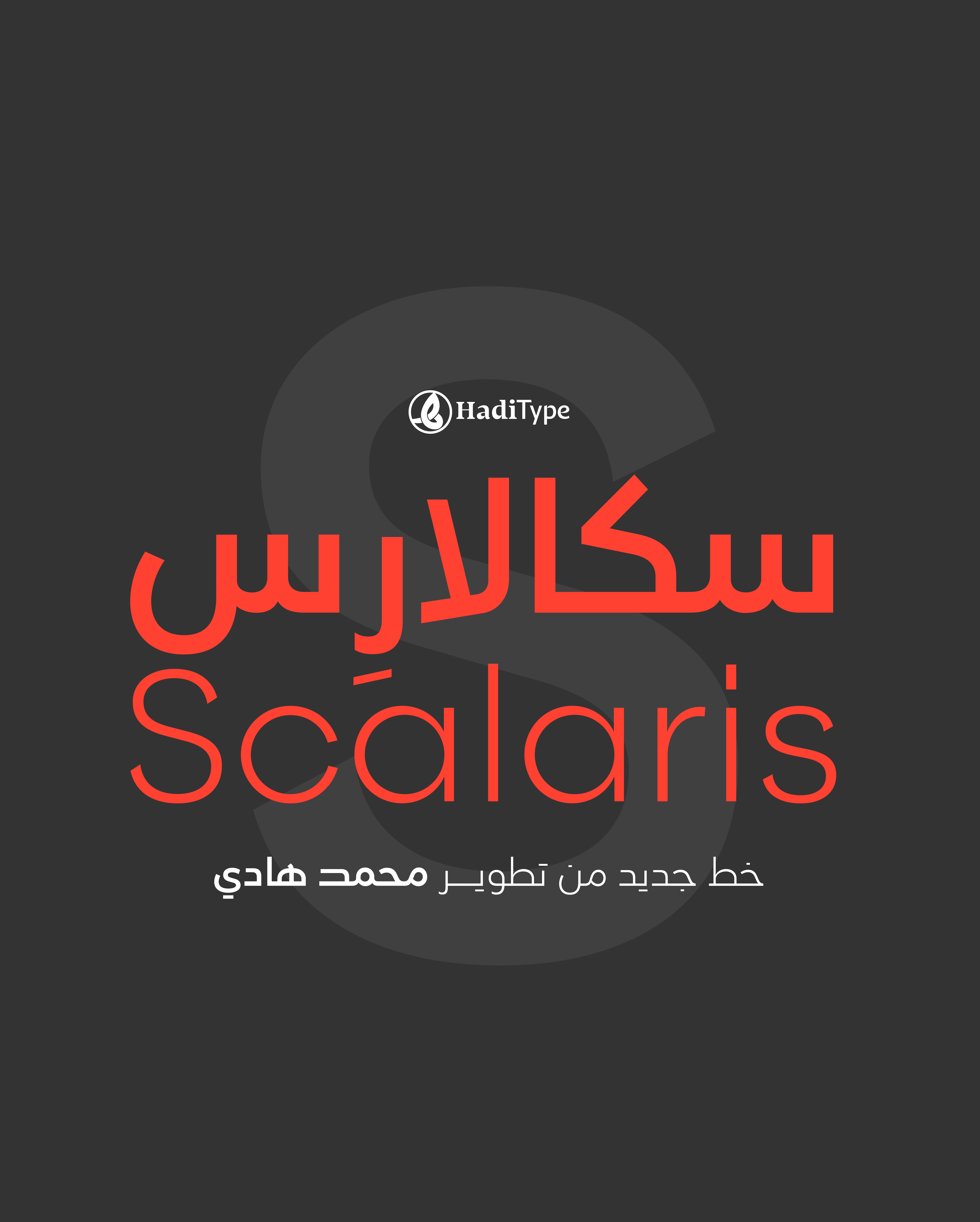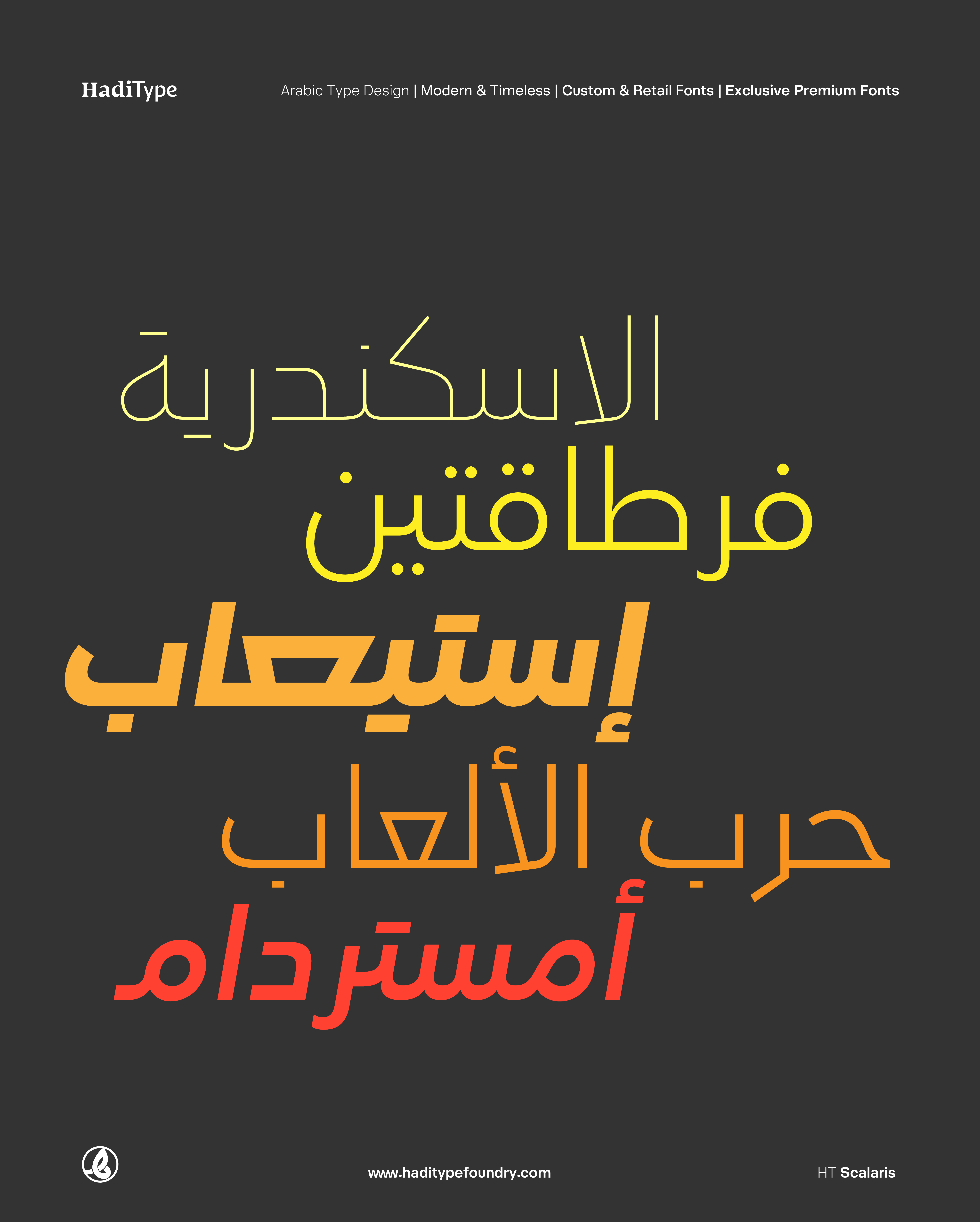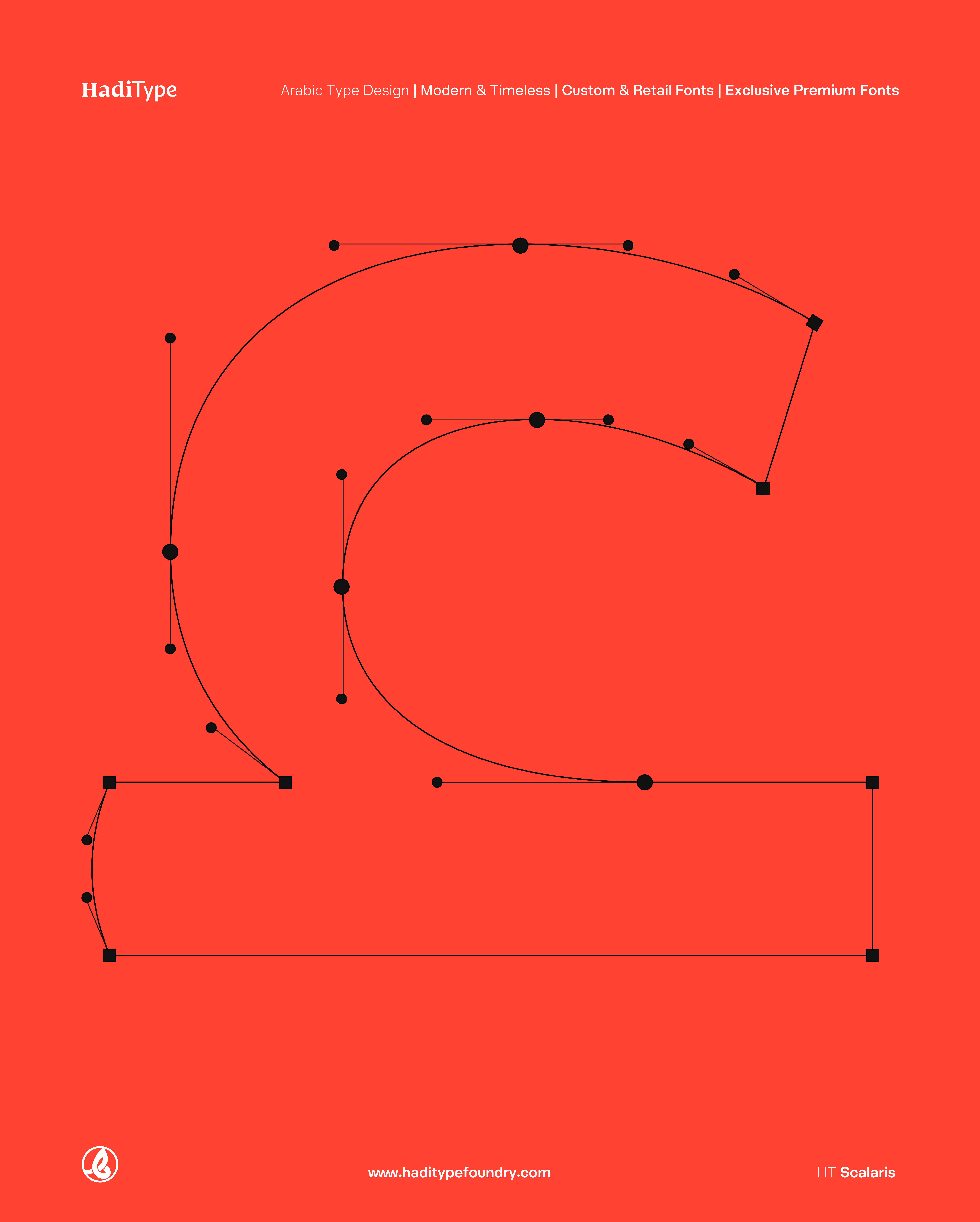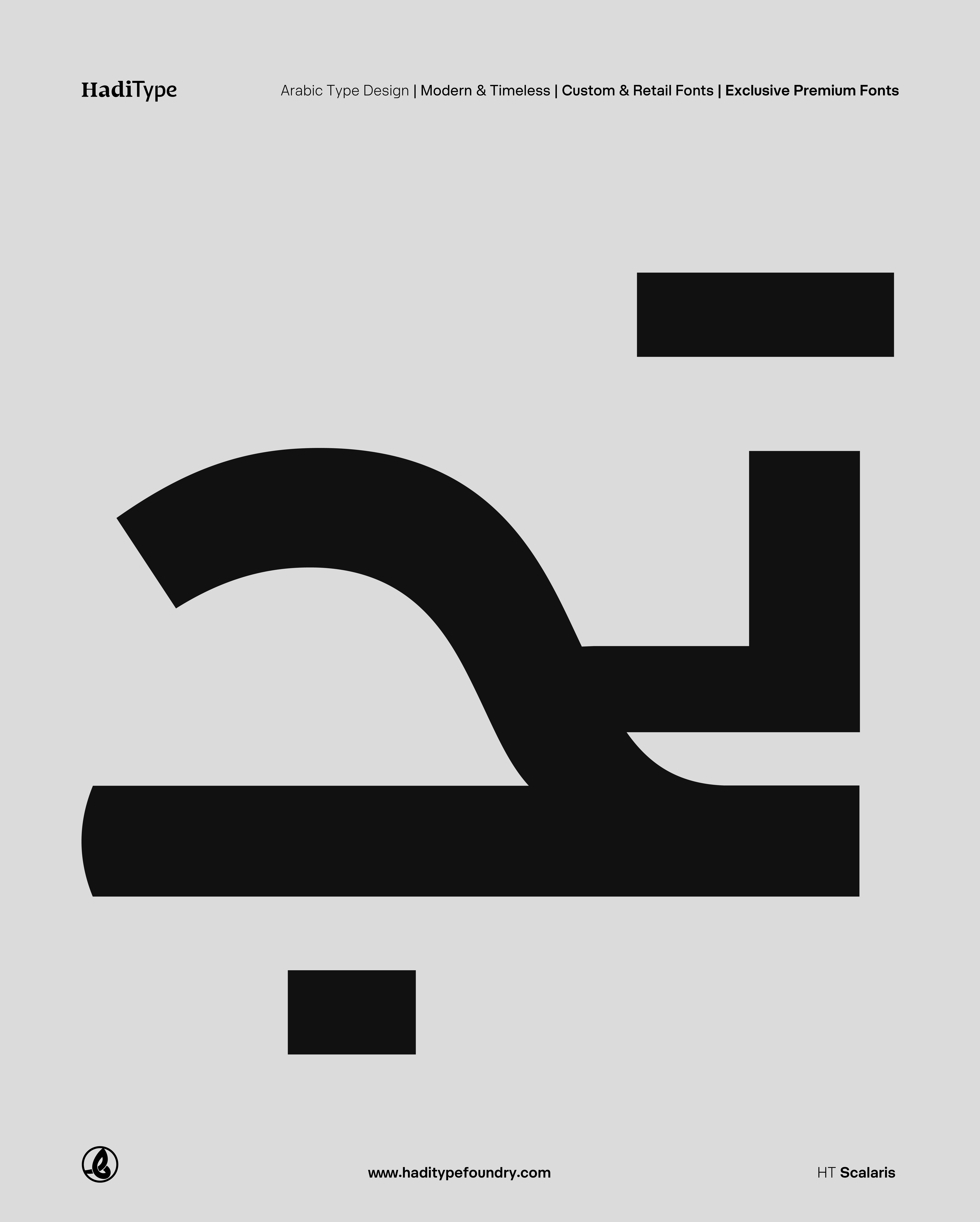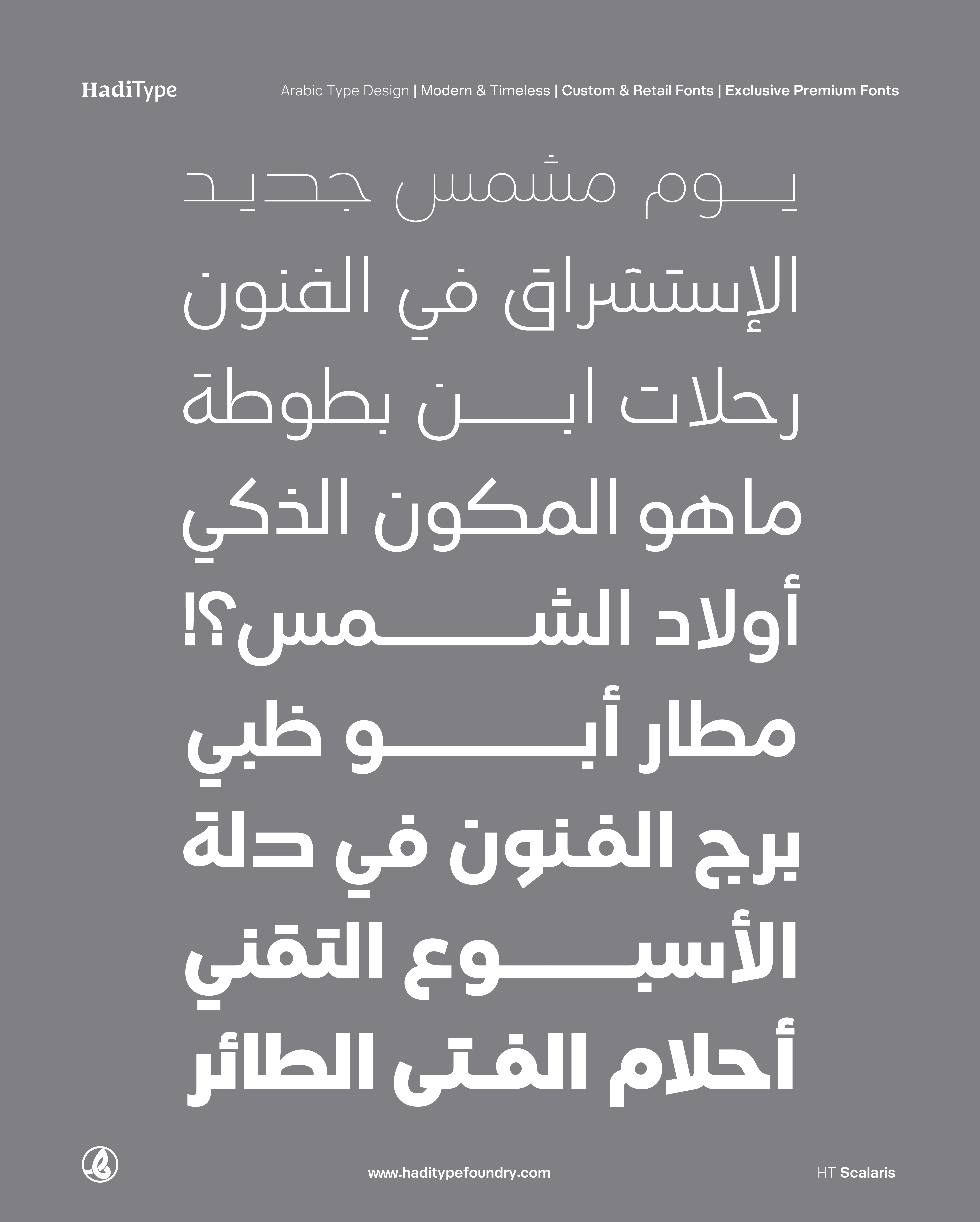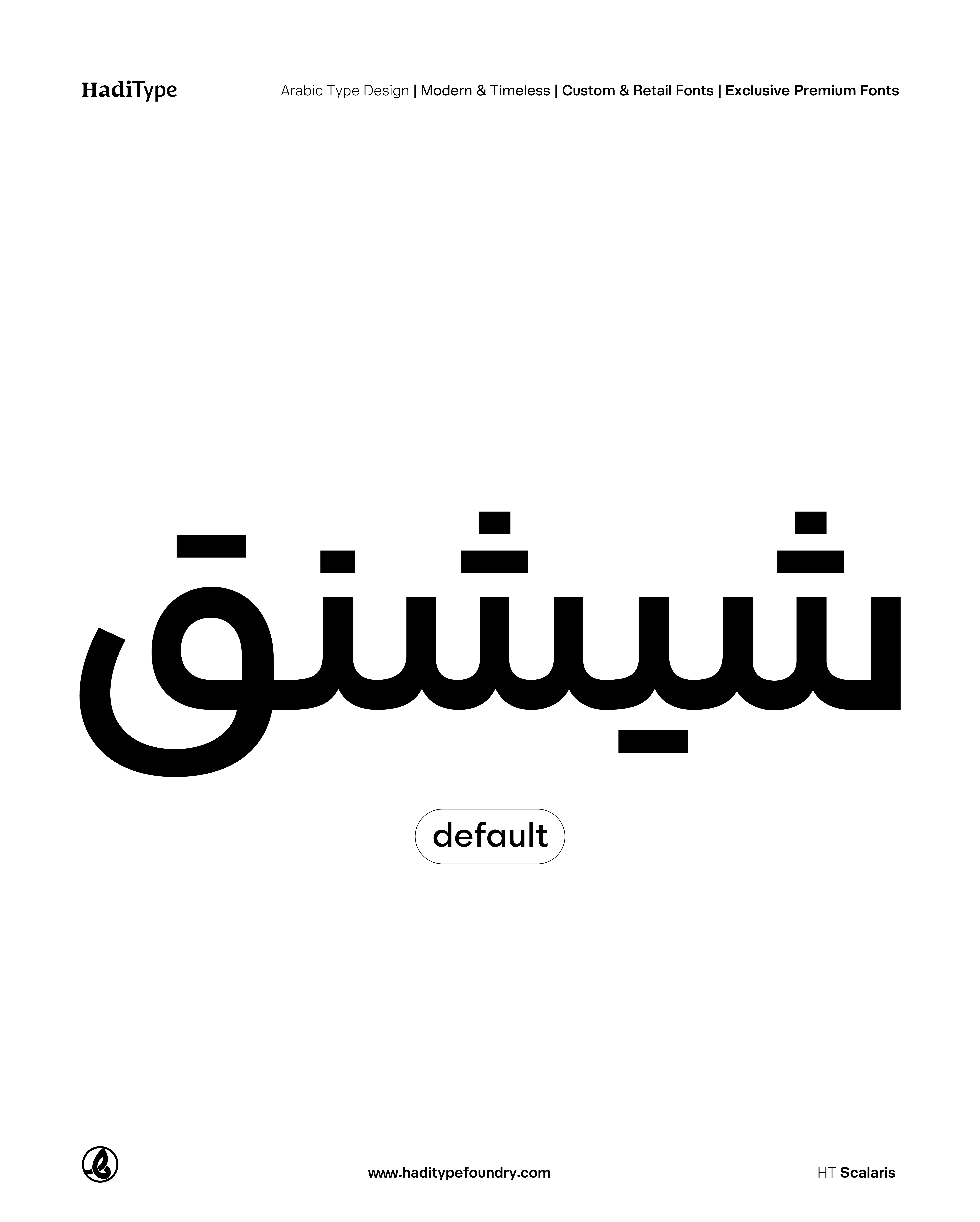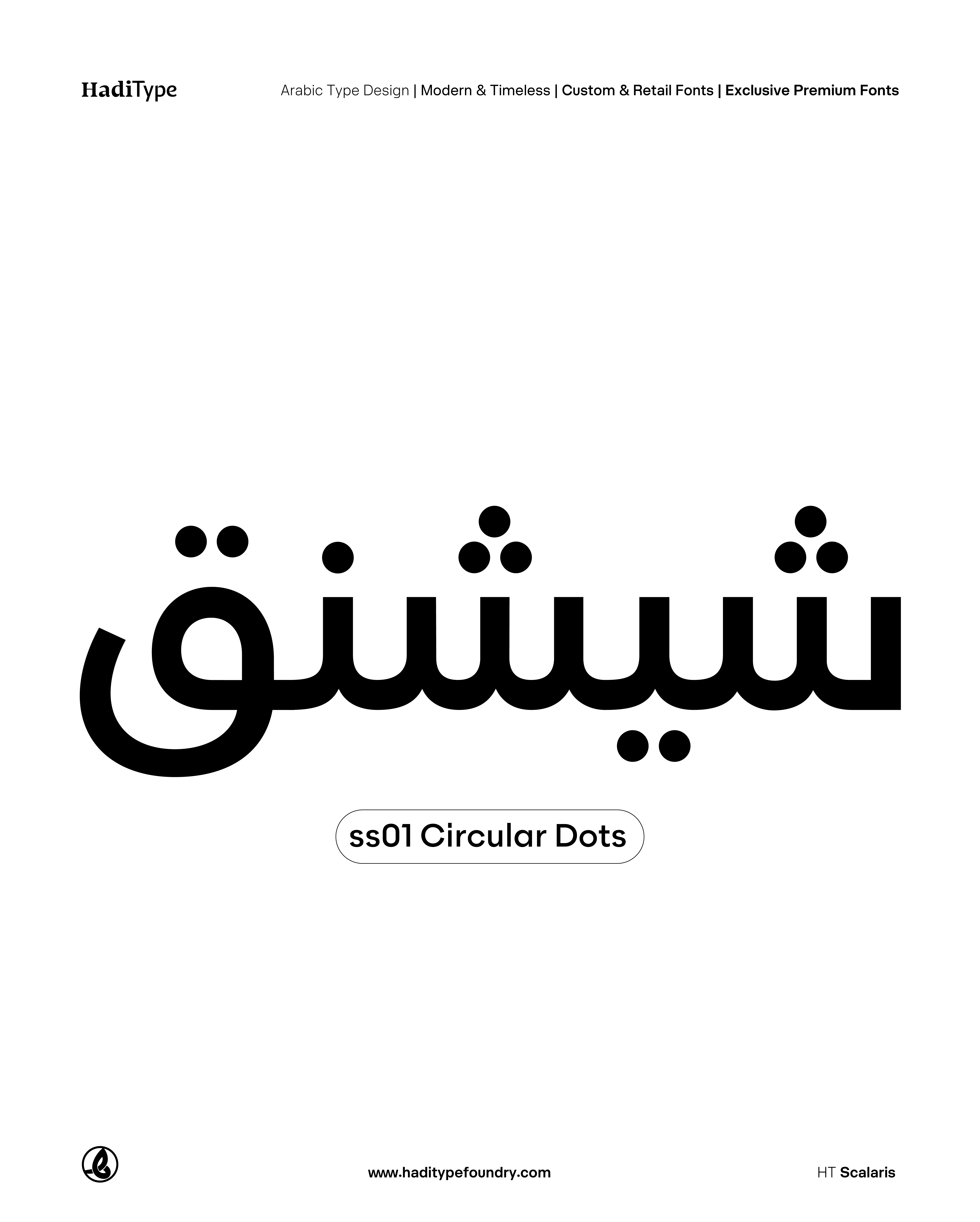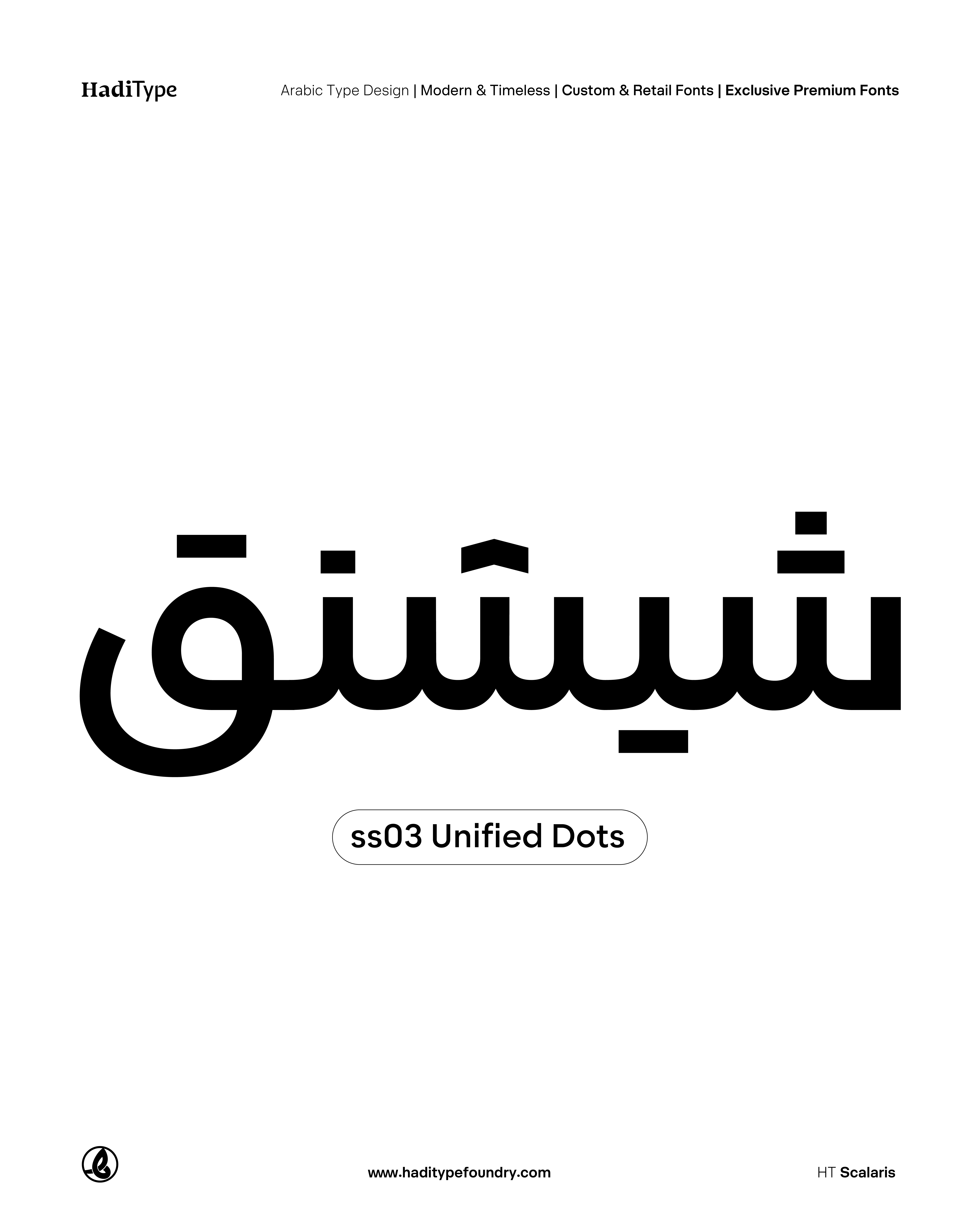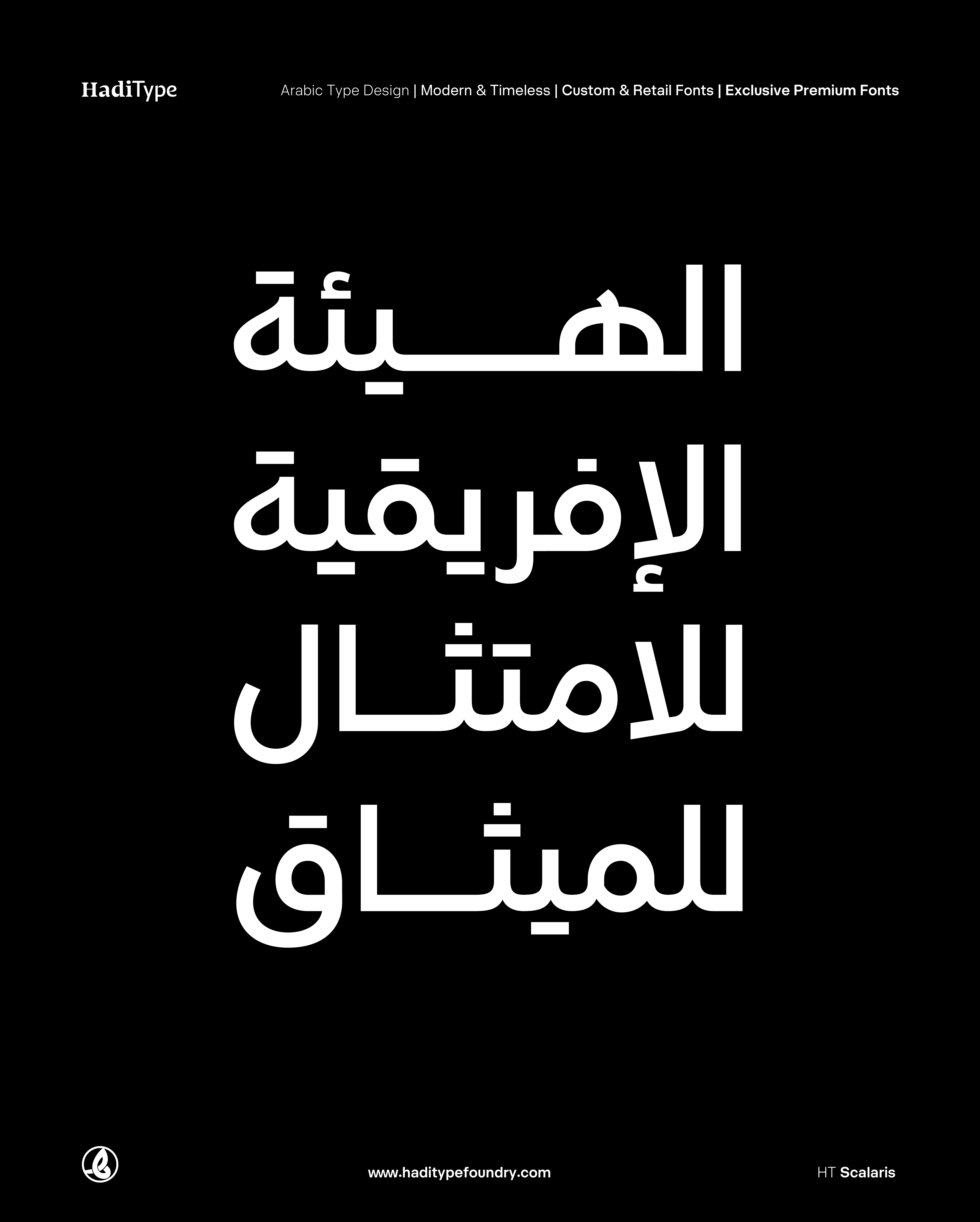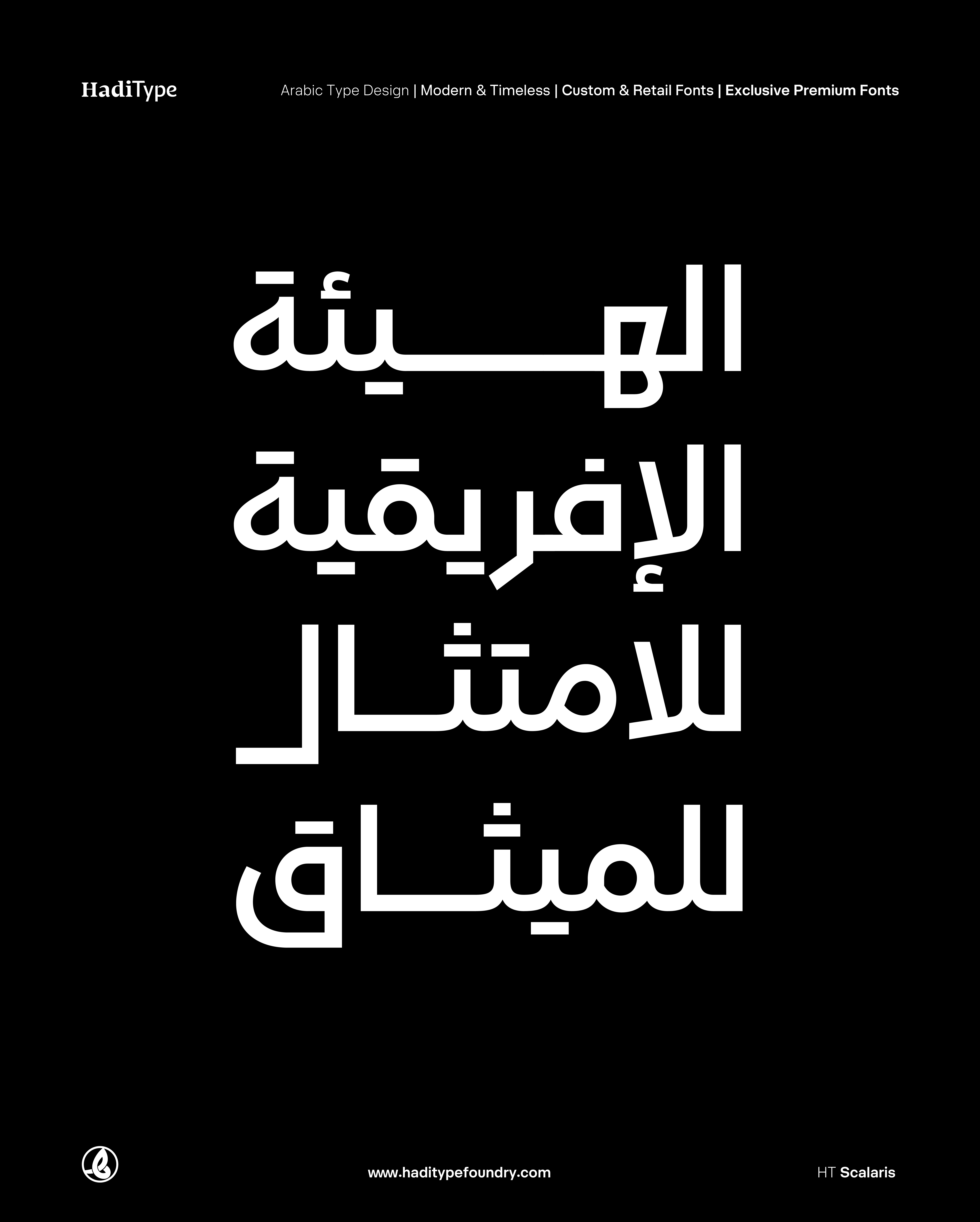
HT Scalaris
سكالارس نظام خط عربي معاصر
نحيف، خفيف، عادي، متوسط، عريض، ثقيل
بدائل أسلوبية للنقاط دون كسر النظام
اختبار التدرّج البصري
تنوع النقاط وتأثيرها على الإيقاع القرائي
مرن في الاستخدام الرقمي والمطبوع
HT Scalaris is a contemporary Arabic typeface designed as a complete typographic system.
It is built on clear scaling logic, structural consistency, and precise control of weight and rhythm.
Scalaris focuses on a balanced geometric Arabic structure, enabling reliable performance across a wide range of weights, from very light to very heavy, while maintaining readability and visual stability across different sizes and use cases.
The typeface is developed for branding, institutional identities, digital interfaces, and editorial design.
It includes OpenType features such as stylistic dot alternates, allowing visual flexibility without compromising system coherence.
Scalaris is not a revival, nor a decorative experiment.
It is a rational, modern typeface designed to function as a dependable, scalable, and long-term typographic tool.